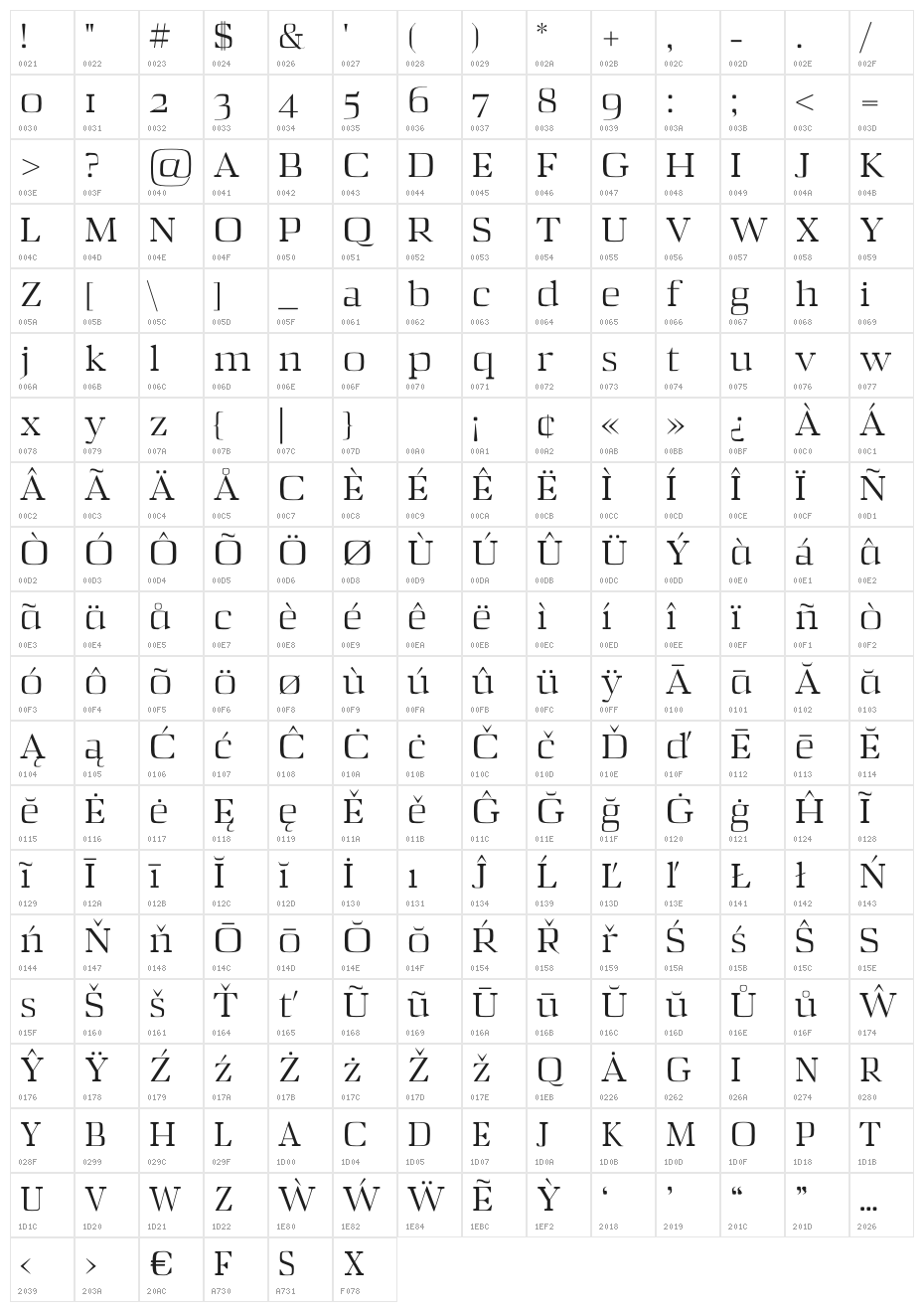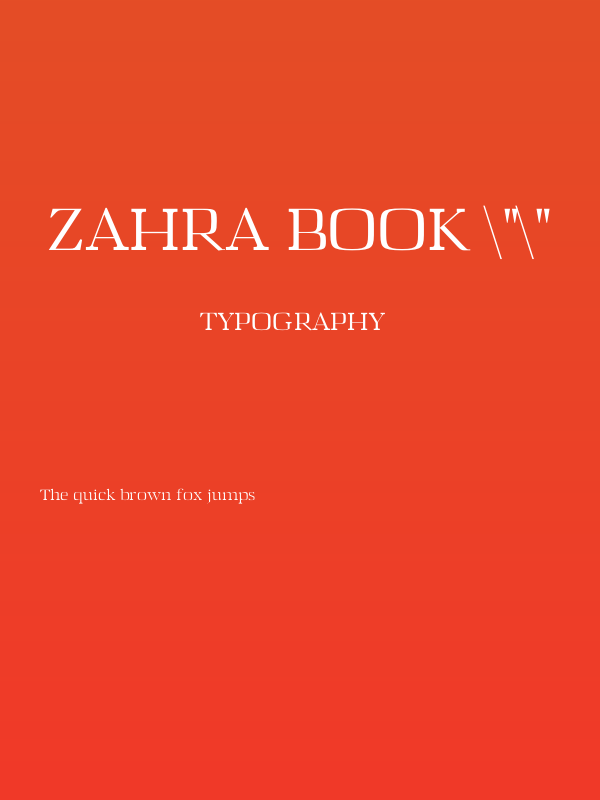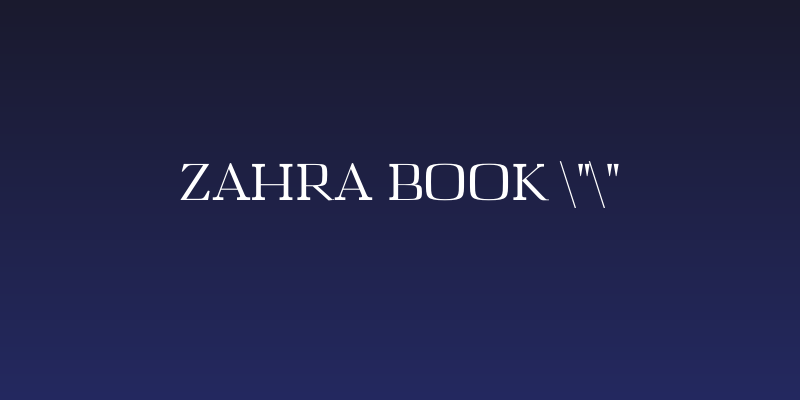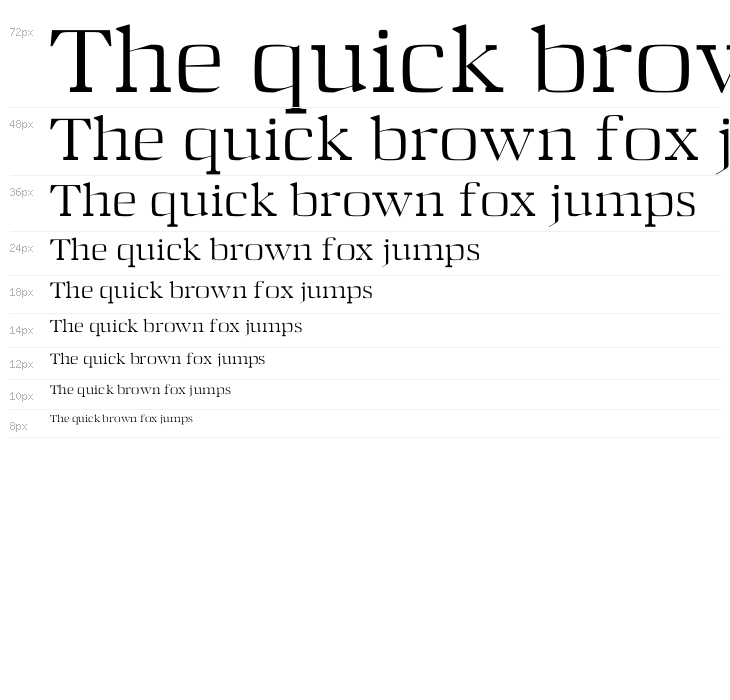
Zahra Book "" Font
Zahra Book "" Description
This font features a unique blend of modern and classic elements, characterized by its sharp, angular serifs and clean lines. The uppercase letters exhibit a strong presence with their tall, narrow forms and distinct serifs, while the lowercase letters maintain a consistent style with slightly rounded edges that soften the overall appearance. The numerals are designed with a similar aesthetic, ensuring readability and style. Special characters are crafted with precision, adding to the font's versatility. The font's design is both elegant and assertive, making it suitable for a variety of applications.
| Proposed Projects | Ideal for editorial design, branding projects, and sophisticated advertising campaigns. |